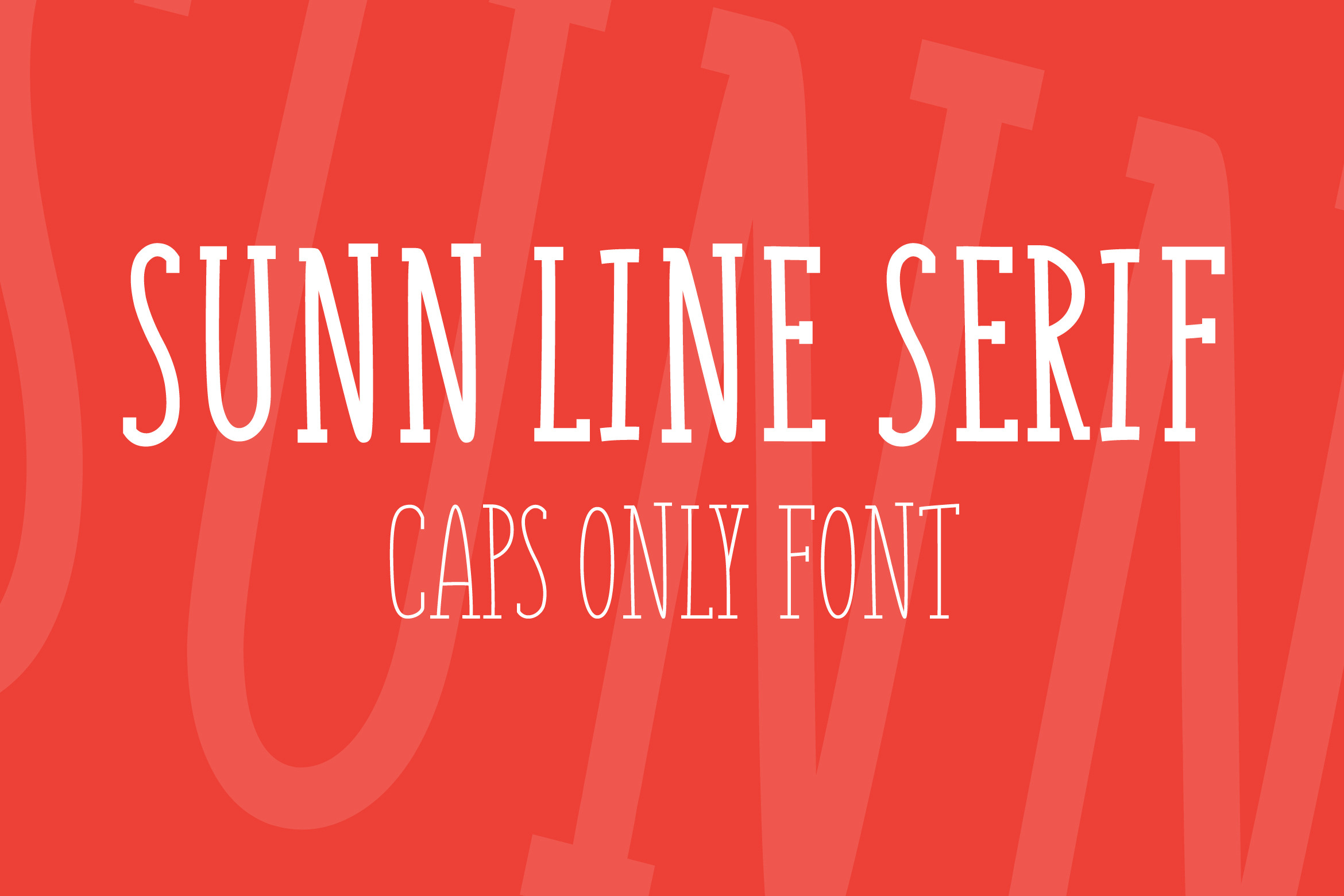
SUNN Line Serif Caps Only Font
SUNN Line Serif Caps Only Font comes in two weights - Bold and Regular, it has only latin uppercase letters, numbers and some symbols. Lightweight.